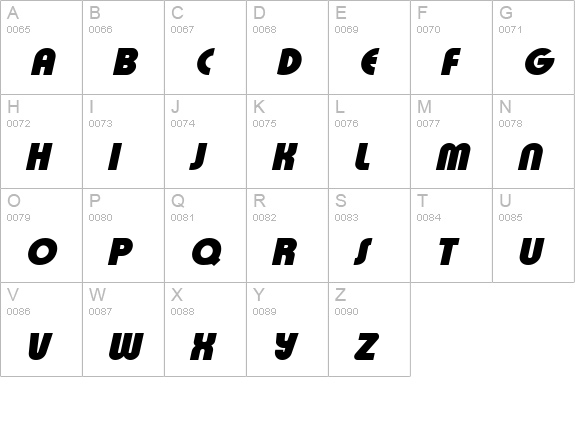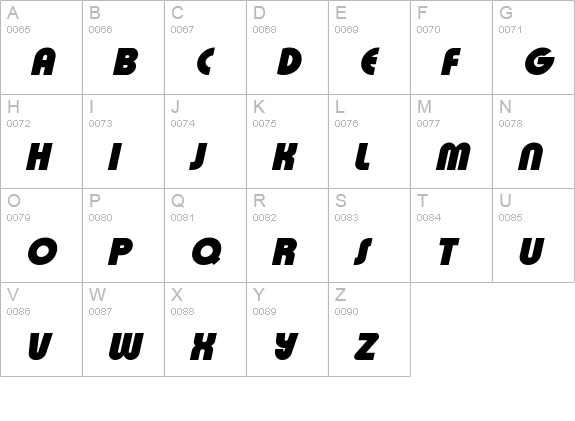
XpressiveBlack Italic Font Details
XpressiveBlack Italic is a distinctive, italic variant in the XpressiveBlack typeface family \xE2\x80\x94 well suited to design and typography projects.
Introducing XpressiveBlack Italic font, a stylish and elegant typeface that exudes sophistication and creativity. The unique design of this font features sleek lines and a modern flair, making it perfect for a wide range of design projects. With its bold and eye-catching appearance, XpressiveBlack Italic font is sure to make a statement and captivate your audience. Whether you're working on branding materials, advertising campaigns, or any other creative project, this font will add a touch of class and professionalism to your work. What's even better is that XpressiveBlack Italic font is available for free download at FontsMarket.com. You can easily access this stunning font and use it in your projects without any cost. Don't miss out on the opportunity to enhance your designs with the exquisite beauty of XpressiveBlack Italic font. Download it today and let your creativity shine!